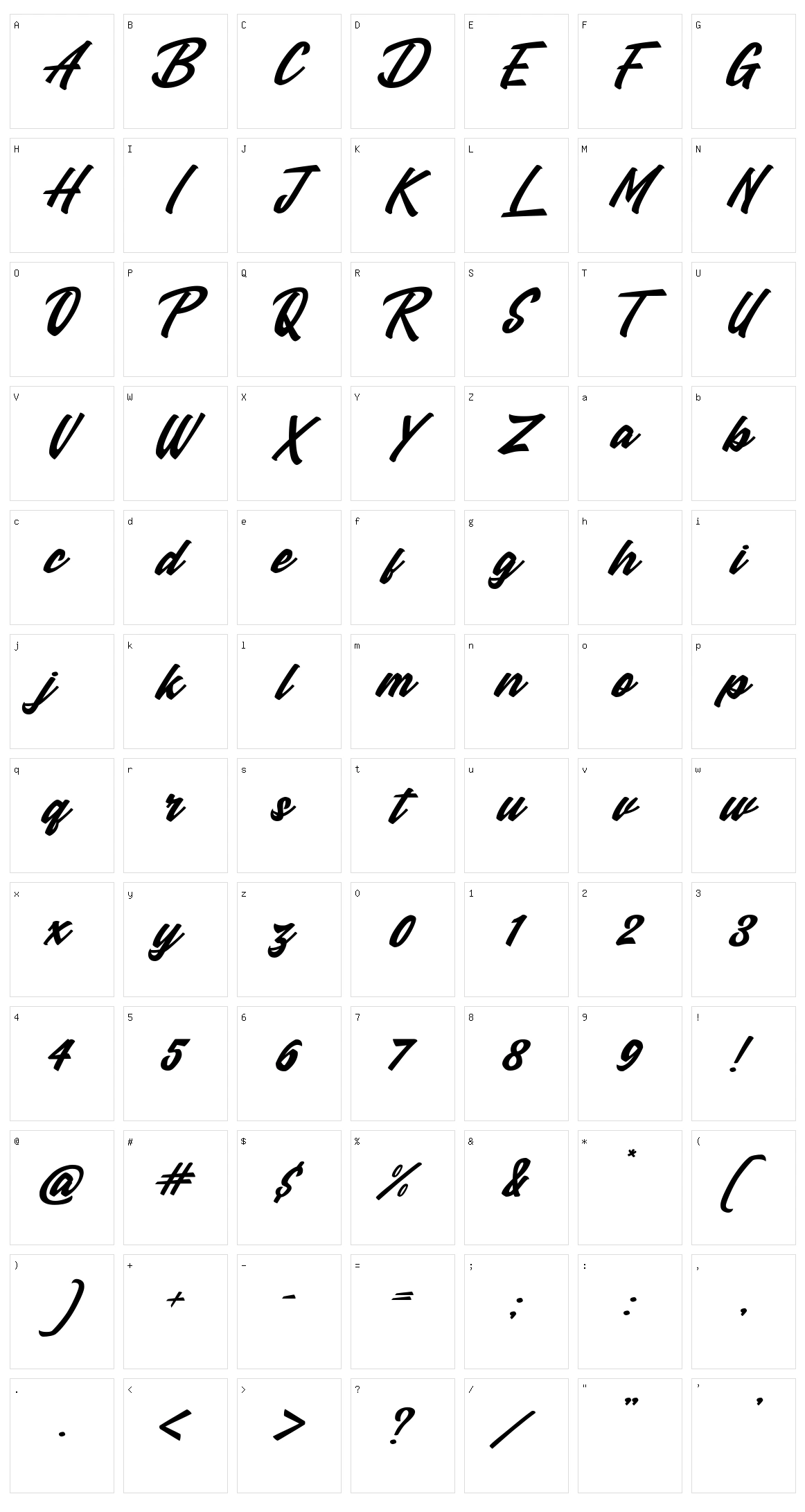
The free font Manzein is carefully designed by Damarletter, showcasing a thoughtful balance of creativity and usability and falls under the Script font style. When you download the ZIP file, it contains only 20.42 KB of font files, making it lightweight and quick to download. Please review the license details below to understand permitted usage and distribution rights. If license information is not available, we recommend using this font for personal projects only or contacting the author directly for commercial usage permissions.